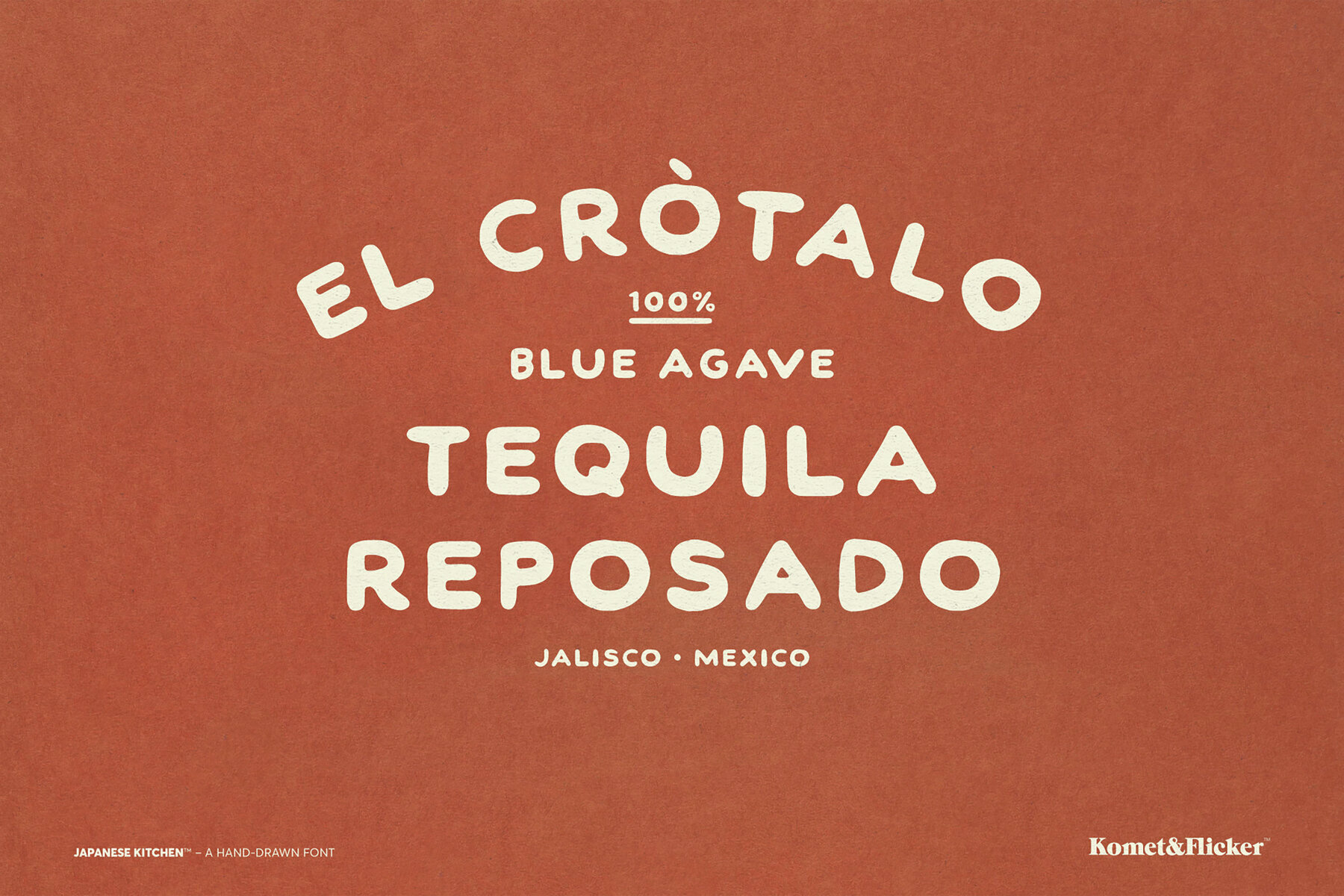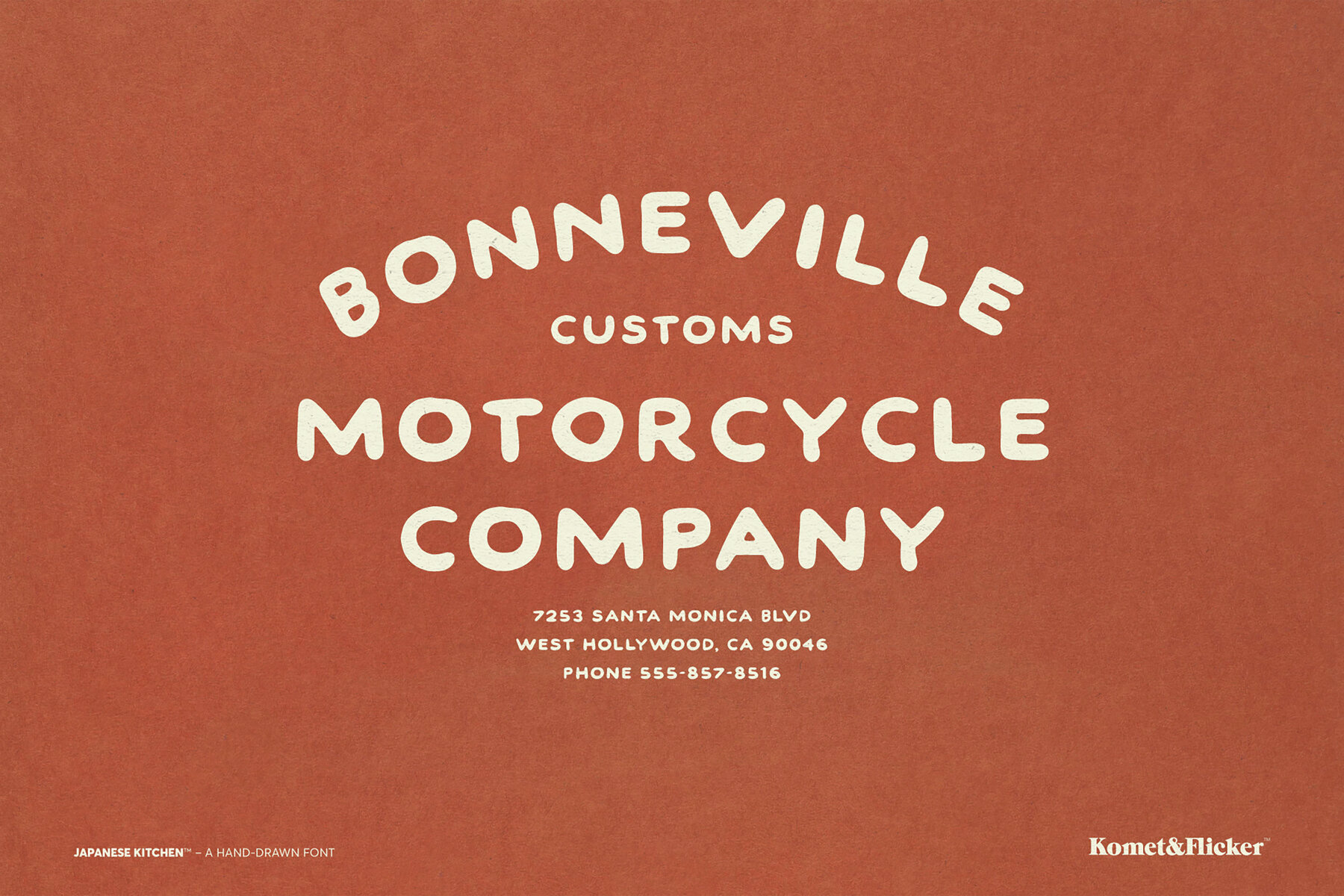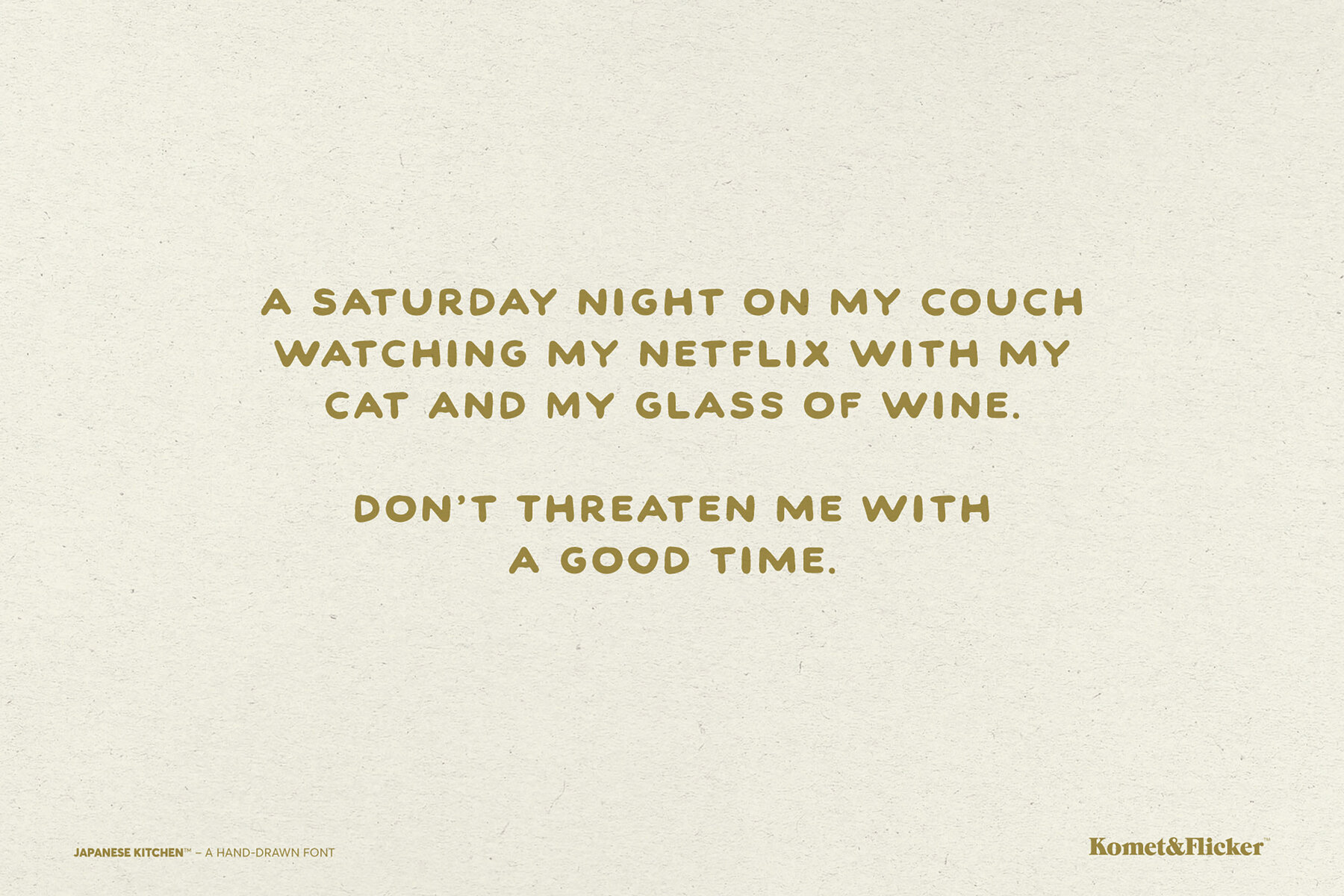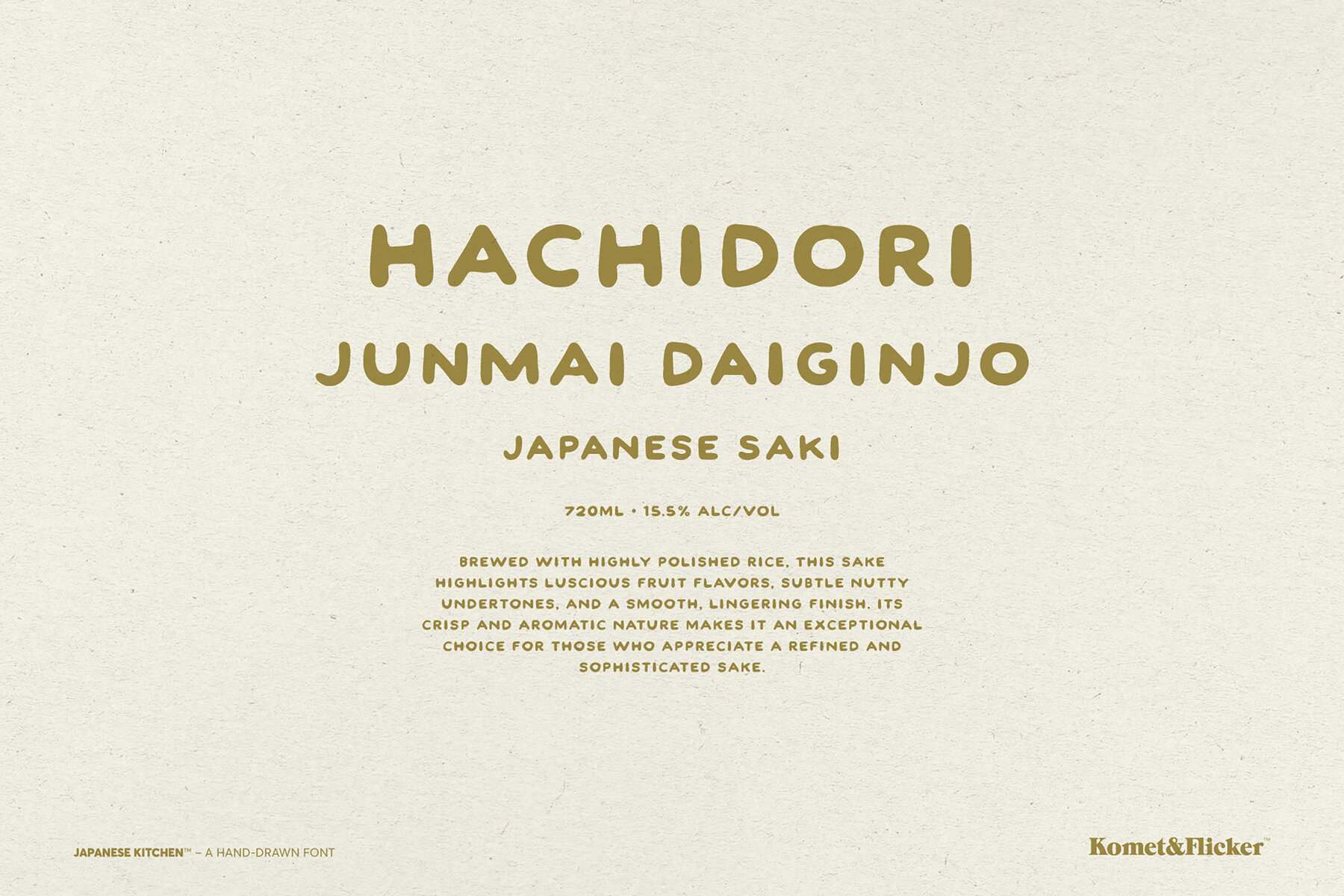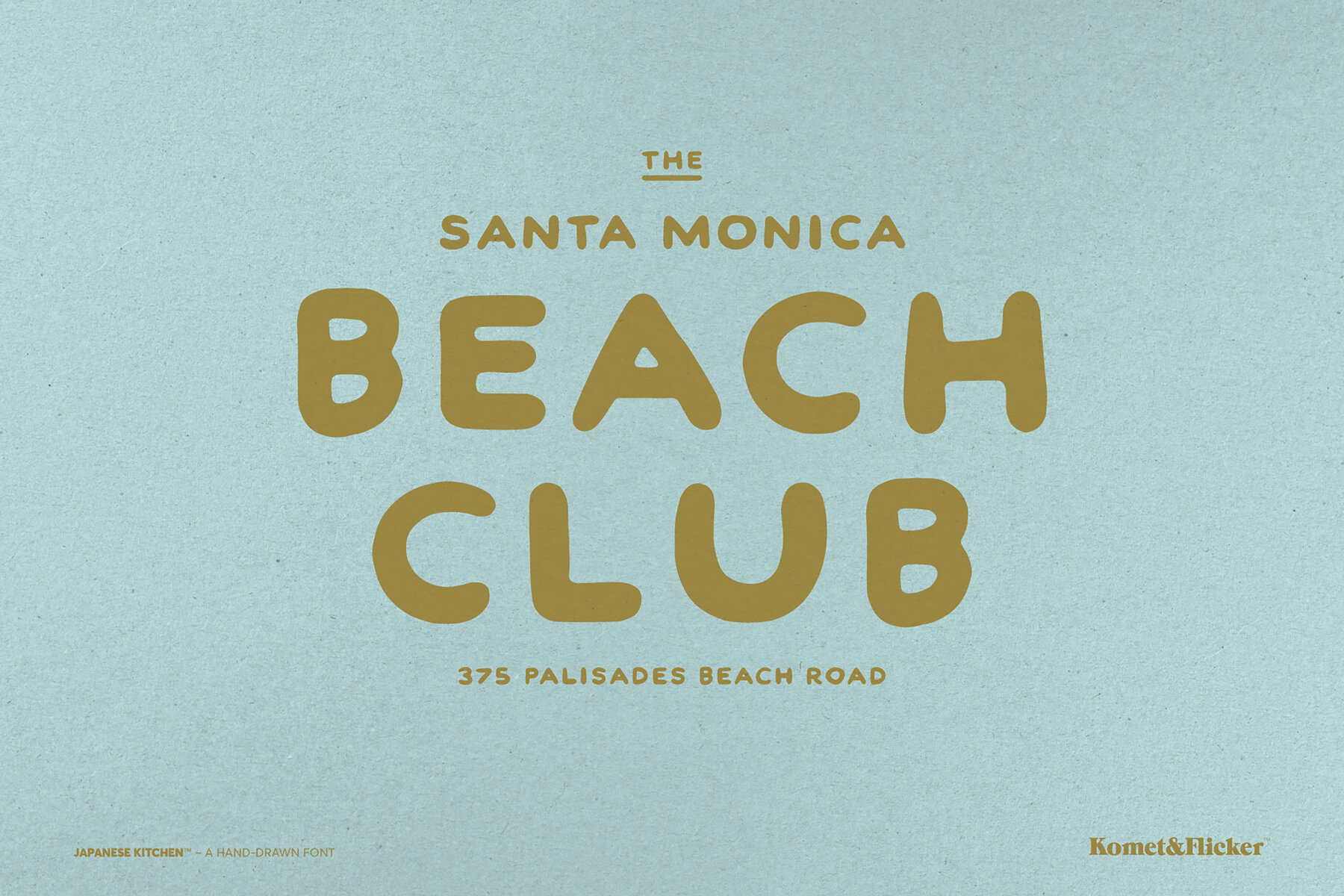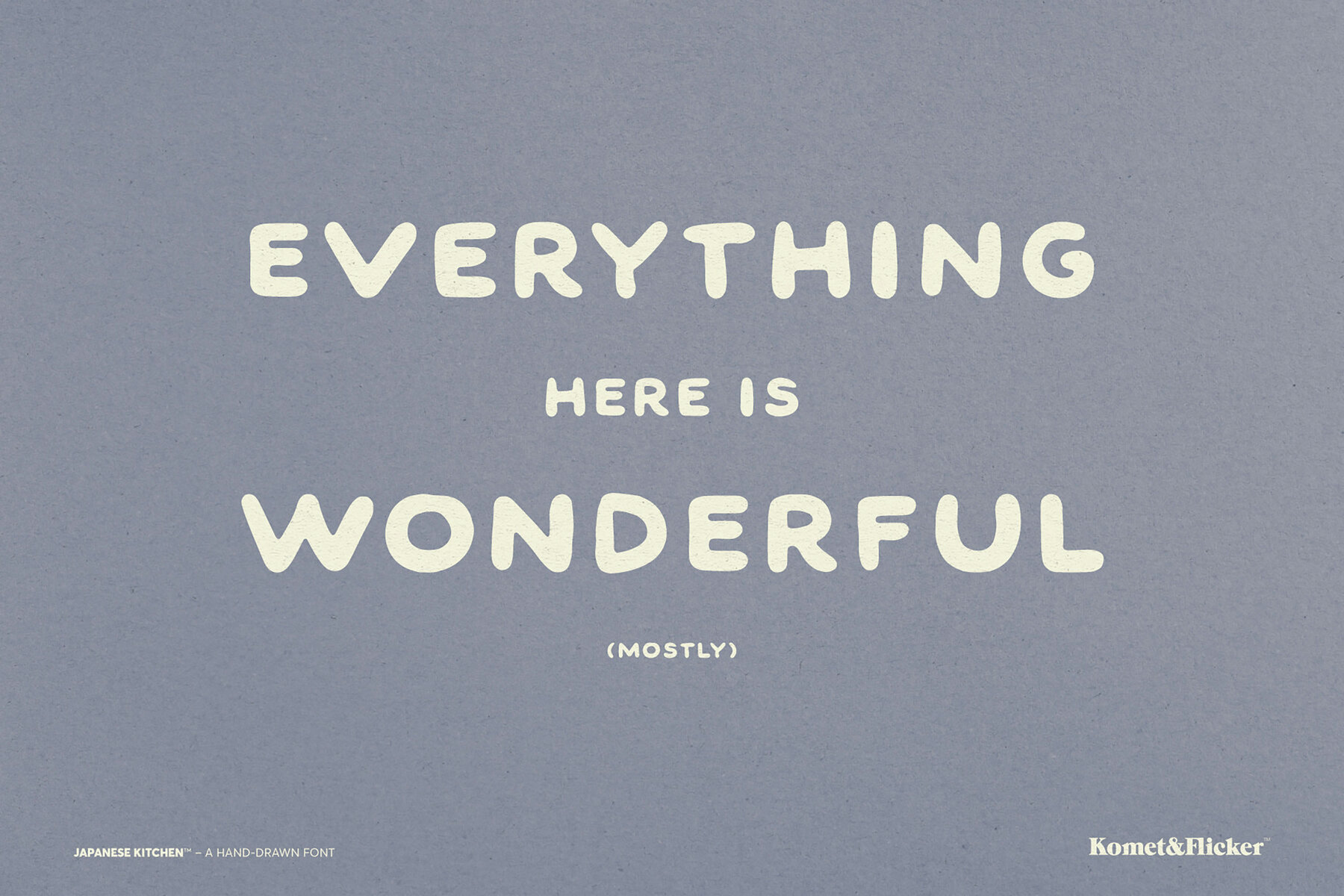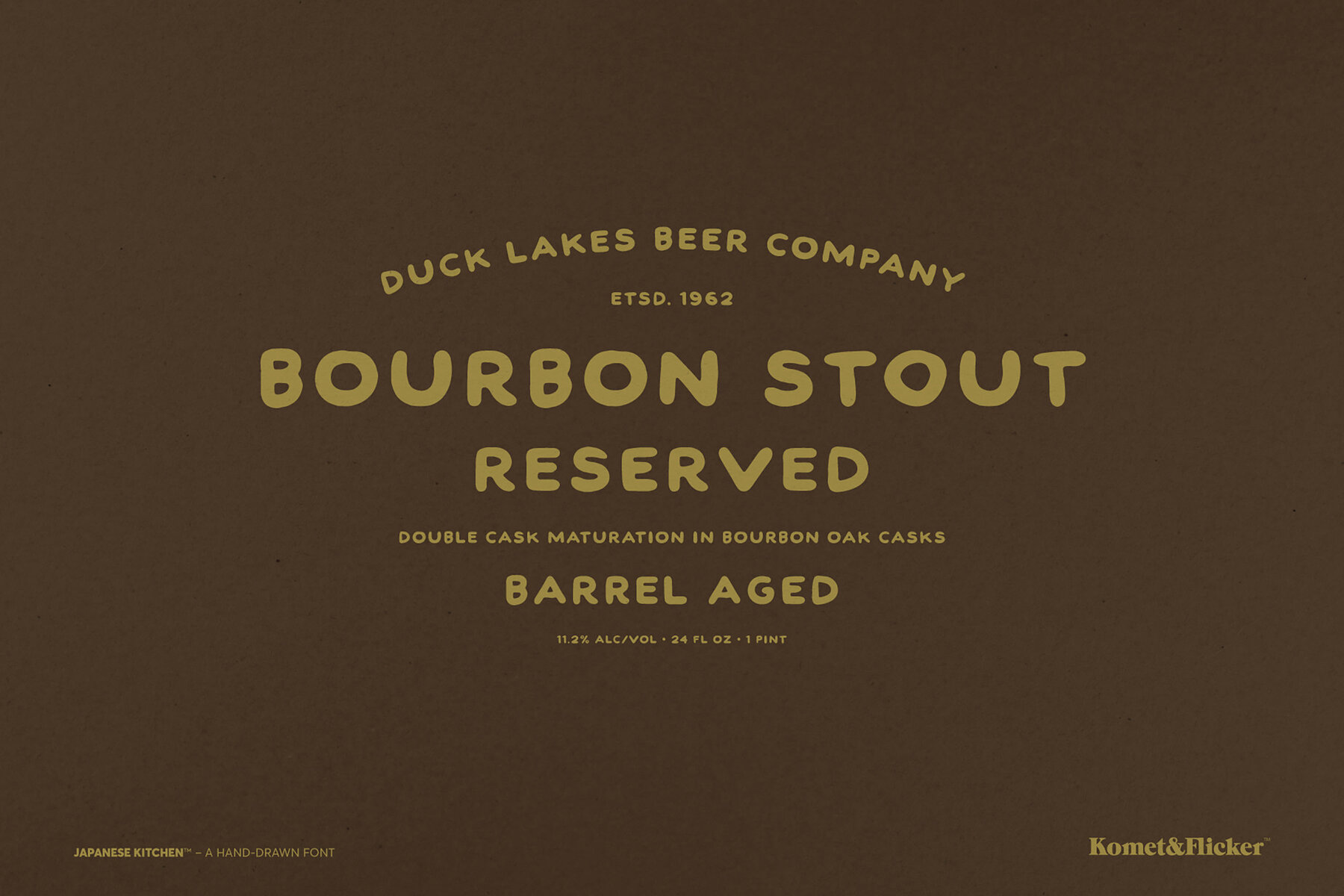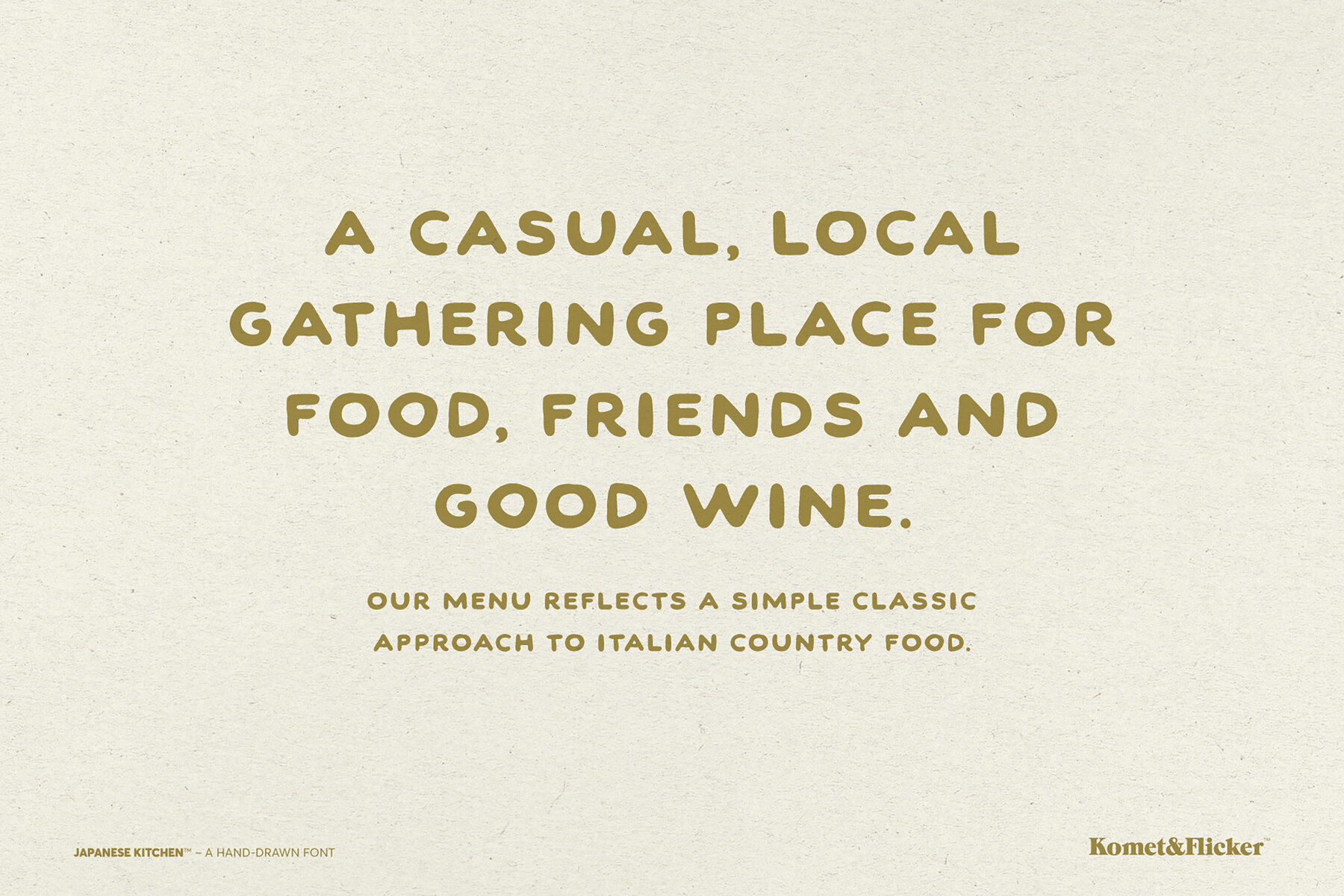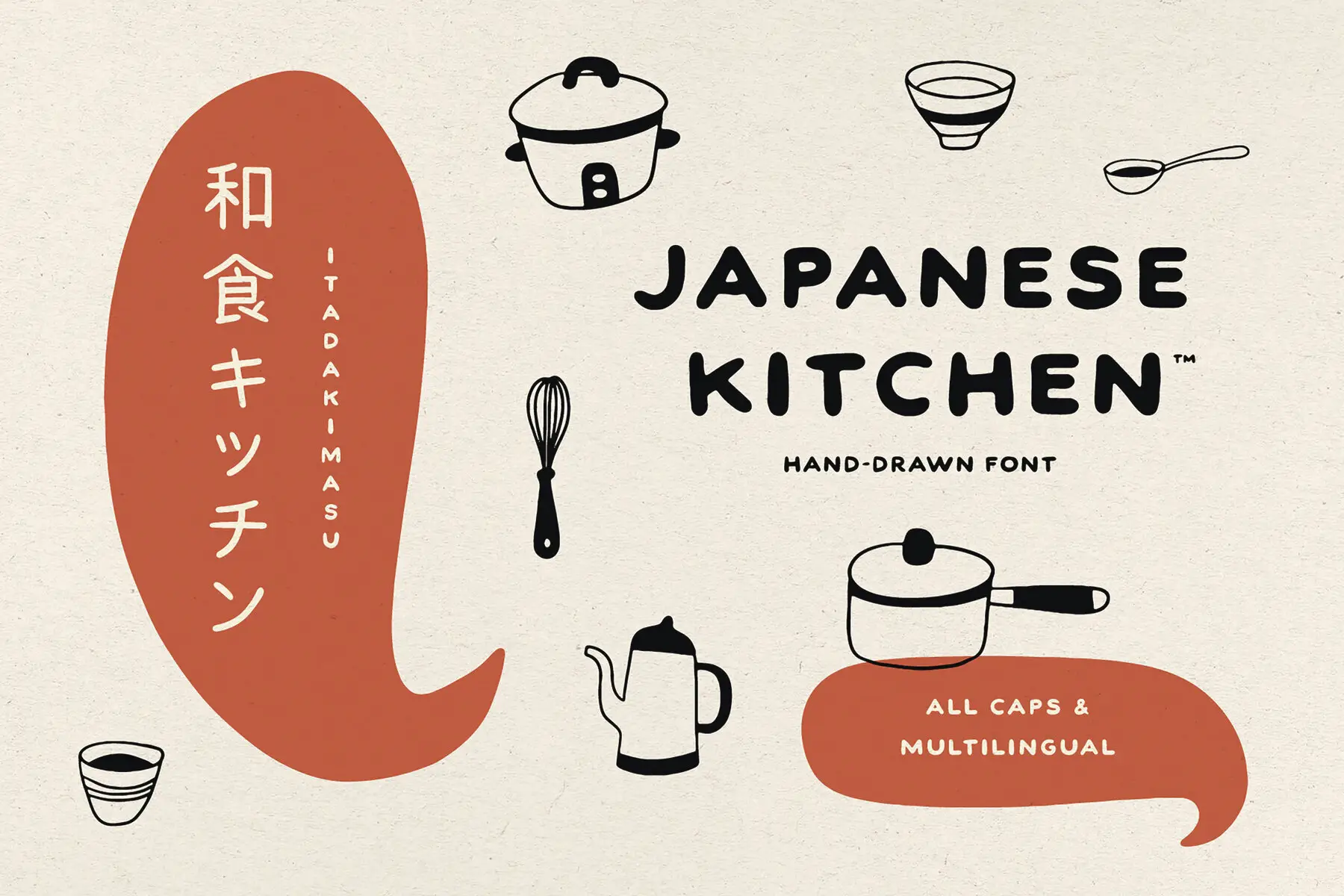
Japanese Kitchen Font
Japanese Kitchen Regular
Embrace the charm of unique typography with Japanese Kitchen, a hand-drawn typeface brimming with character. This font captivates with its handmade style, offering a carefully designed all-caps aesthetic. Its distinctive lowercase letters allow for a harmonious blend with uppercase, delivering a naturally dynamic appeal. The font extends its versatility with a collection of 11 custom connecting word glyphs, such as "and," "the," and "with." These additions may enhance your text layout, facilitating a seamless, fluid design that exudes authenticity. Additionally, a delightful set of seven hand-drawn kitchen icons, including rice cookers and teapots, infuse an extra creative flair, ideal for culinary-inspired projects. Access extra glyphs easily through "Type → Glyphs" in Illustrator or "Type → Panels → Glyphs Panel" in Photoshop.Japanese Kitchen: A Hand-Drawn Typeface Delight